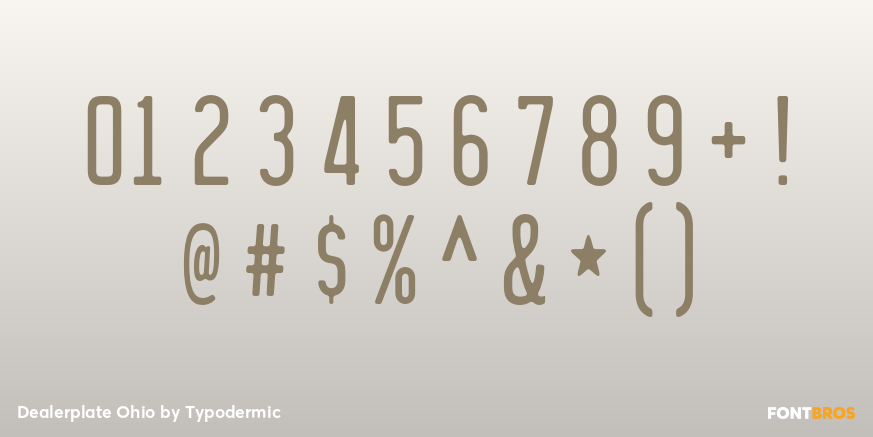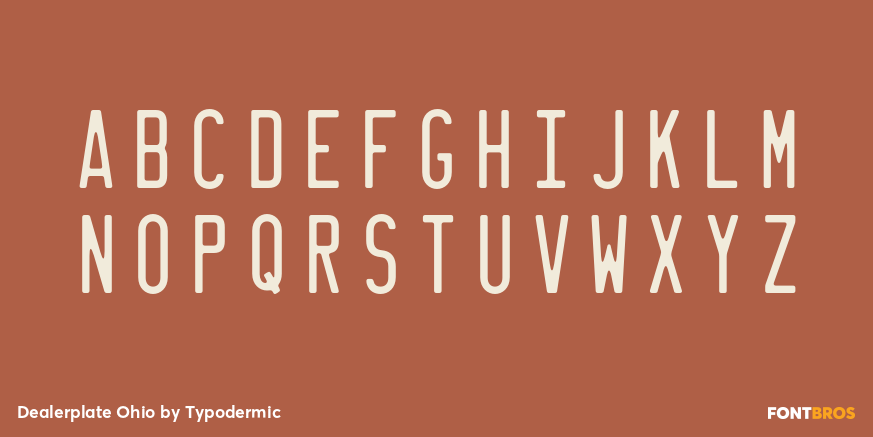
Dealerplate Ohio
Dealerplate Ohio develops Ohio-inspired license-plate lettering into a full display alphabet. It gives designers a practical way to create fictional registrations, place names, and supporting vehicle graphics with an Ohio cue instead of reconstructing missing letters from a limited photographic sample.
Use it for Rust Belt dramas, Midwestern road films, police-procedural props, trucking and driving games, virtual-production traffic, evidence photos, tow-yard documents, parking permits, and automotive heritage displays. The style can link a plate to case labels, vehicle-selection screens, dealership inserts, or garage signage, carrying the regional identity through an entire production package.